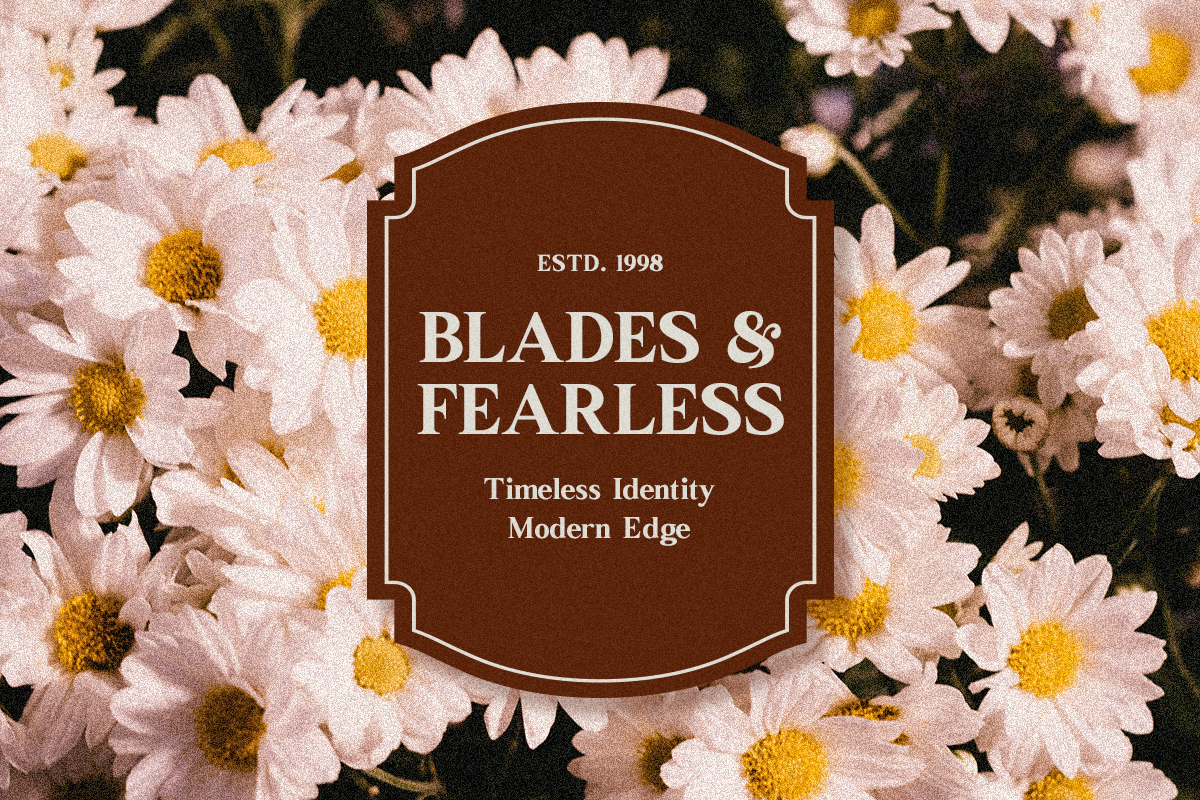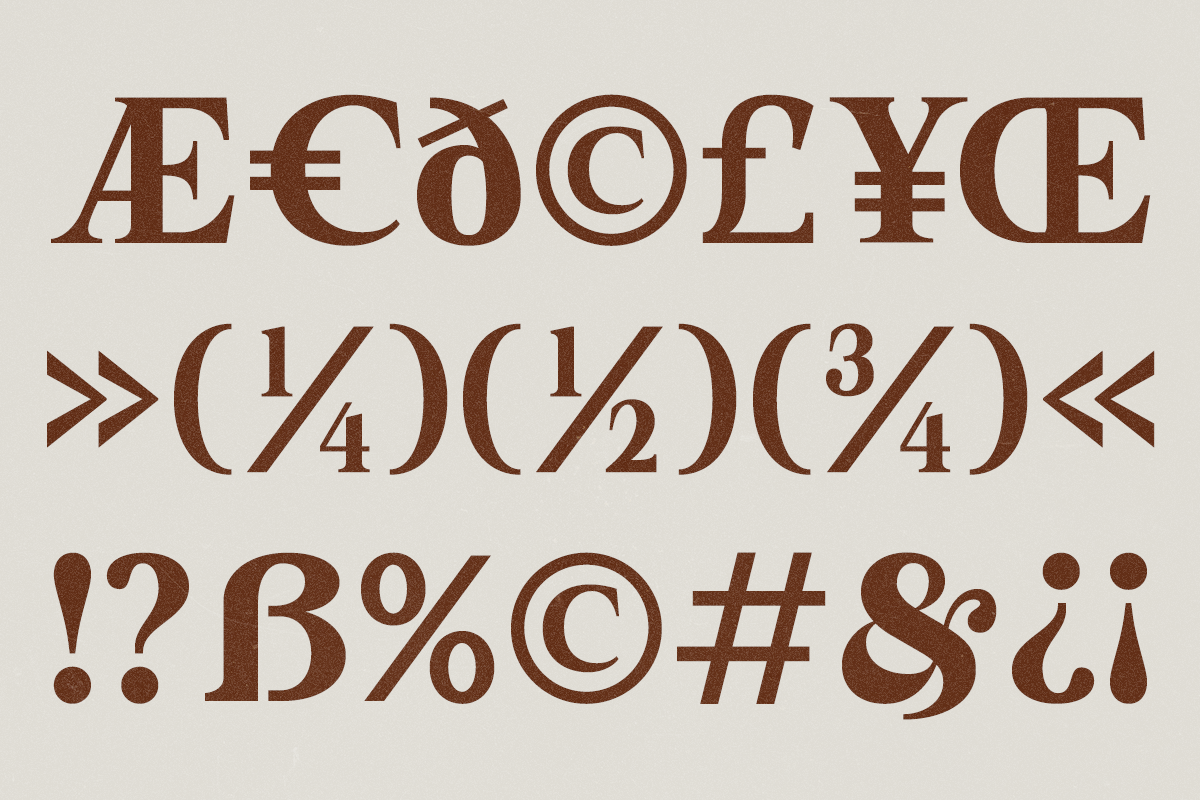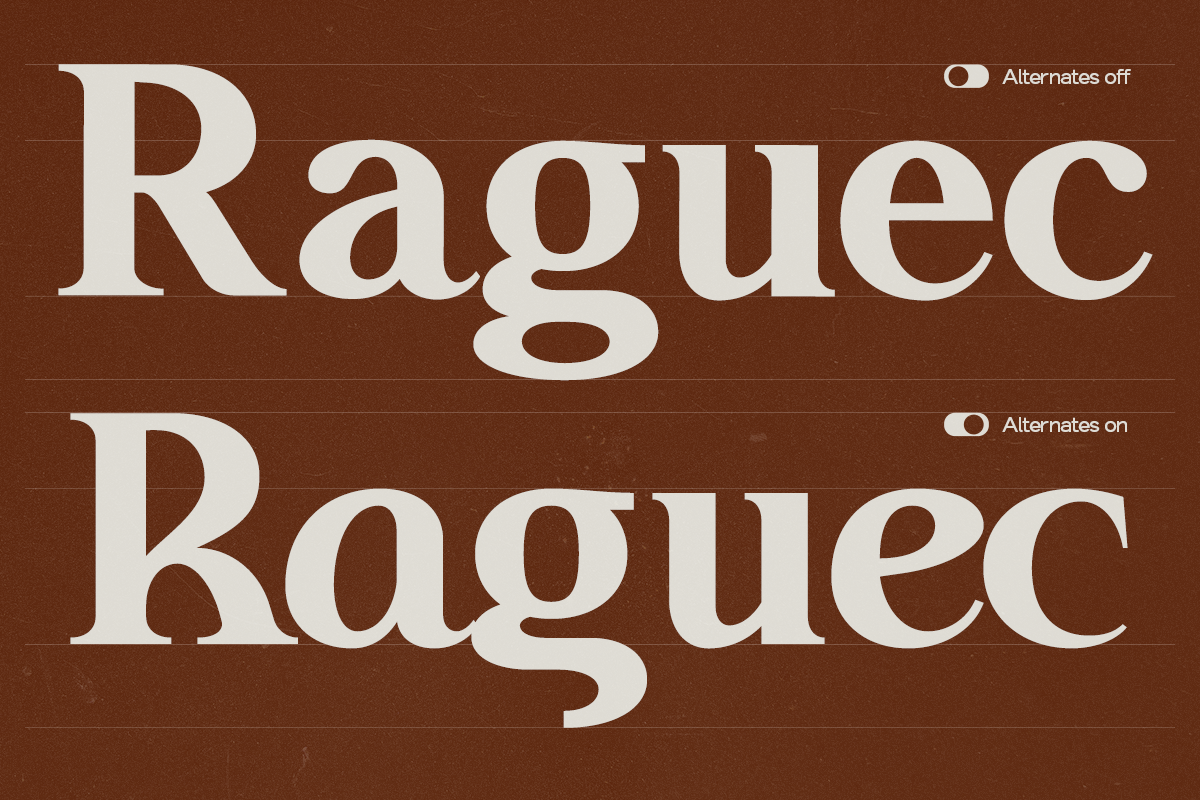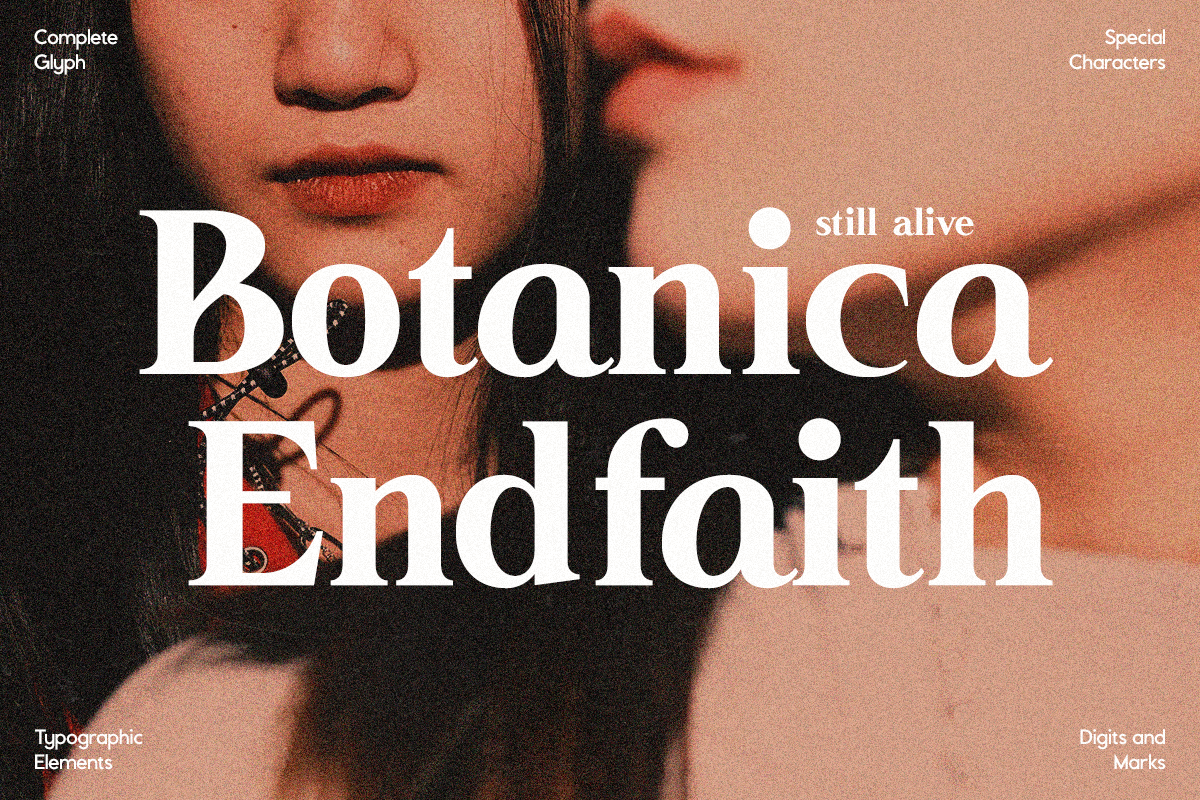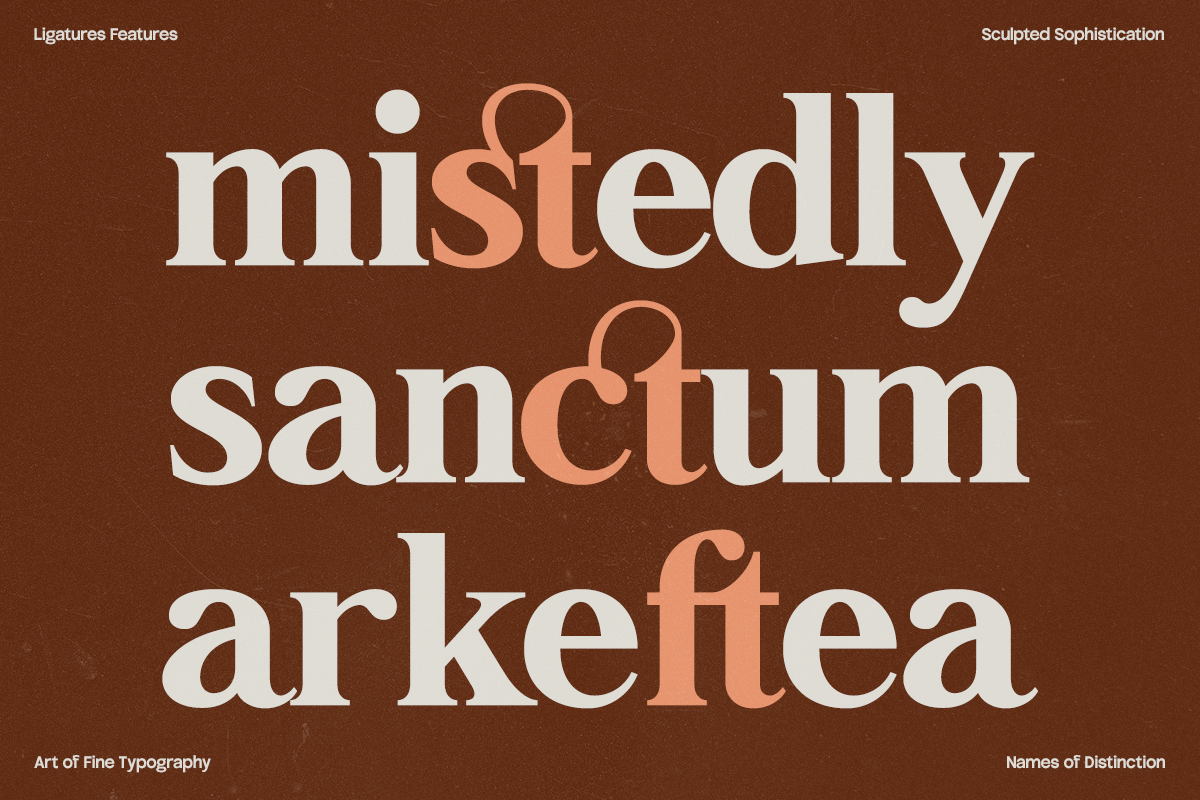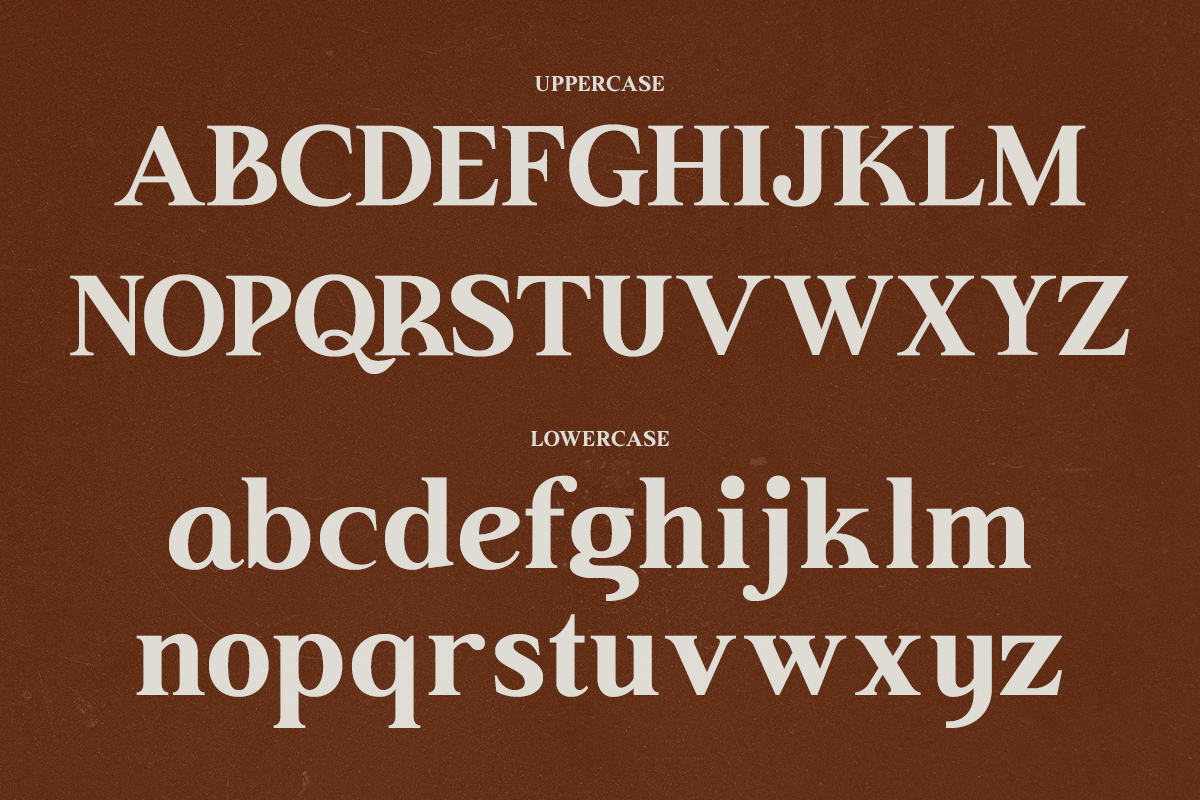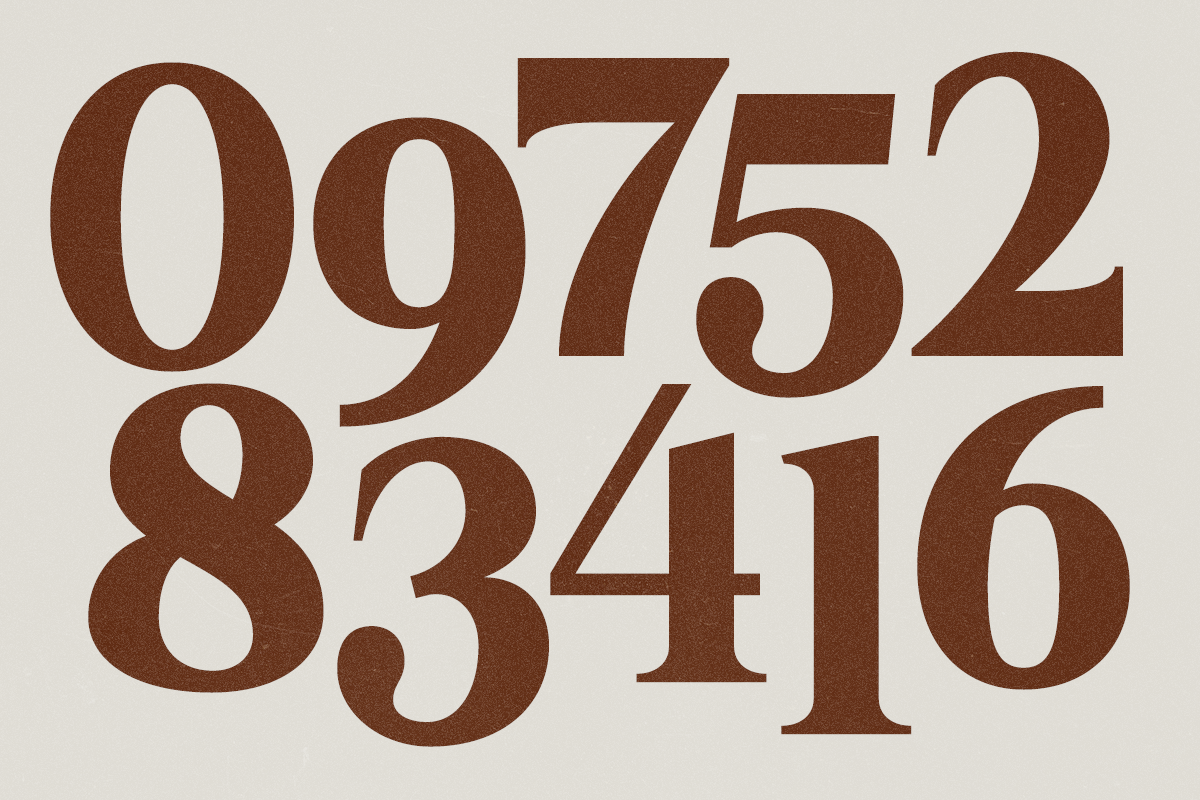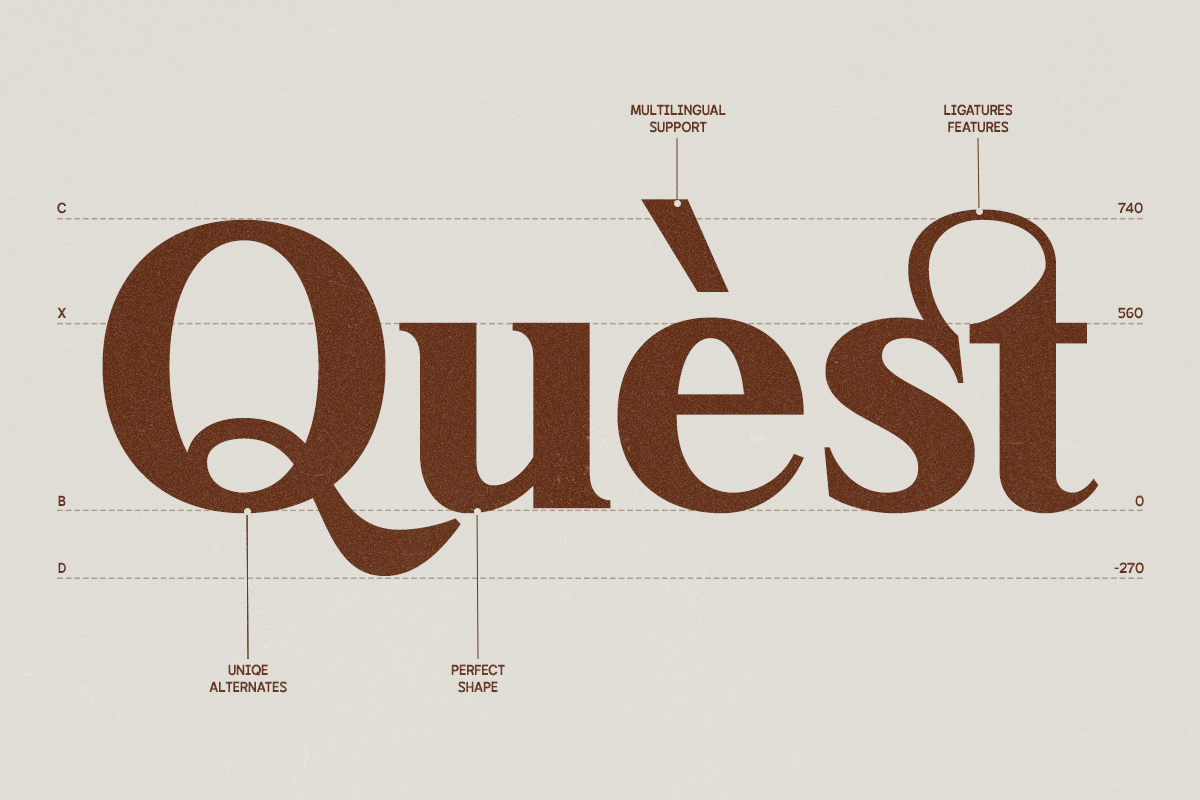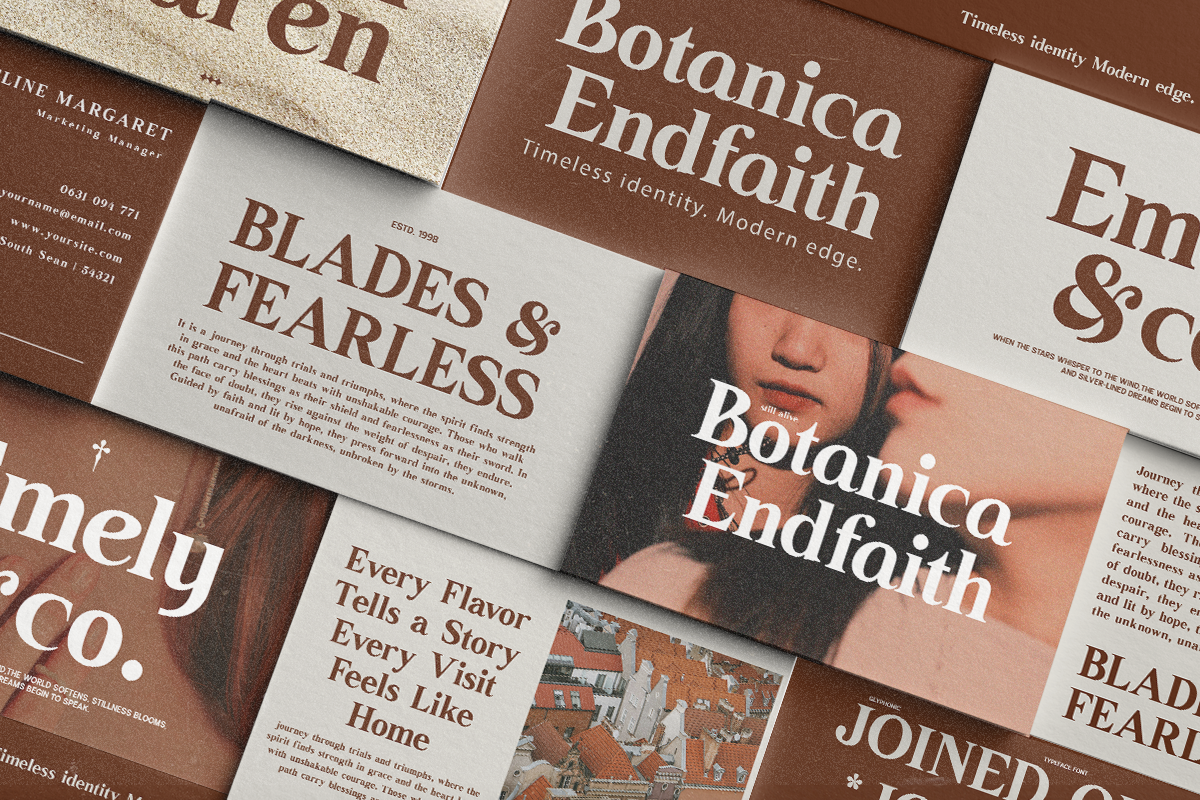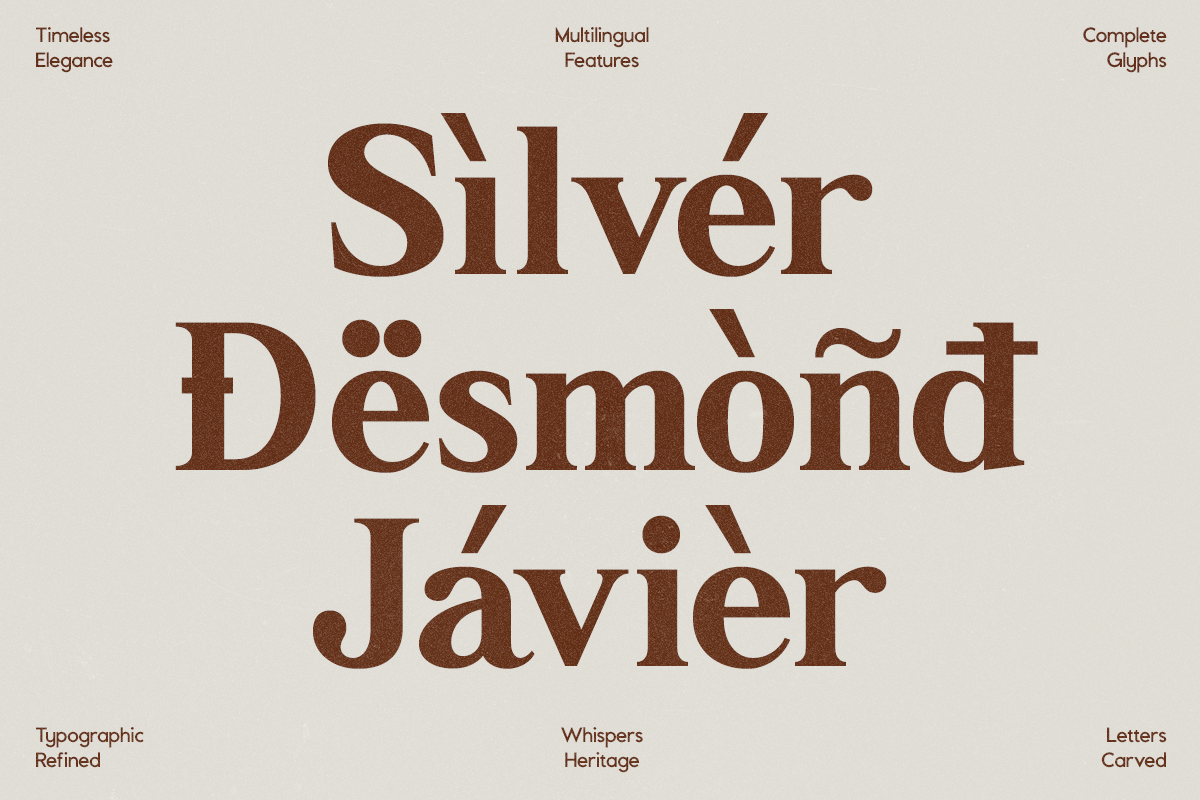
GC Neue Benfica – Classic Serif
GC Neue Benfica is a modern classic serif typeface crafted for elegance, versatility, and timeless appeal. With refined proportions, graceful curves, and balanced contrast, it delivers a sophisticated voice that works seamlessly across digital and print media. Designed to embody tradition with a contemporary touch, it’s perfect for branding, editorial layouts, luxury packaging, and striking visual identities. Every detail is shaped to bring both authority and refinement, making GC Neue Benfica adaptable yet distinctive.
Whether you’re creating bold headlines, refined editorials, or elegant posters, this font adds sophistication, clarity, and modern elegance to your typography.
- Modern Classic Serif Construction
- Multilingual Support (170+ Languages)
Bring timeless sophistication and modern elegance to your design with GC Neue Benfica.